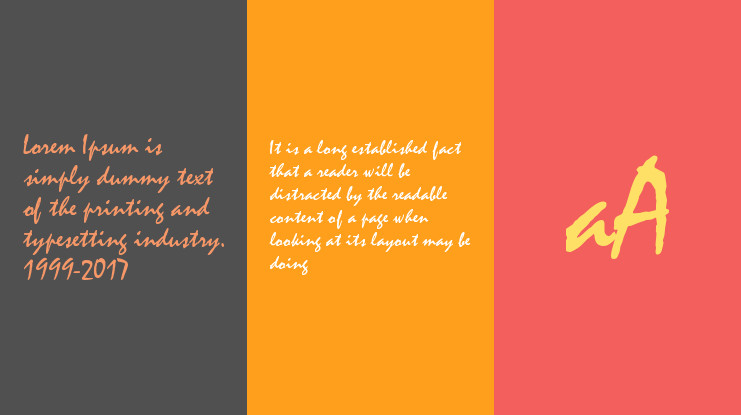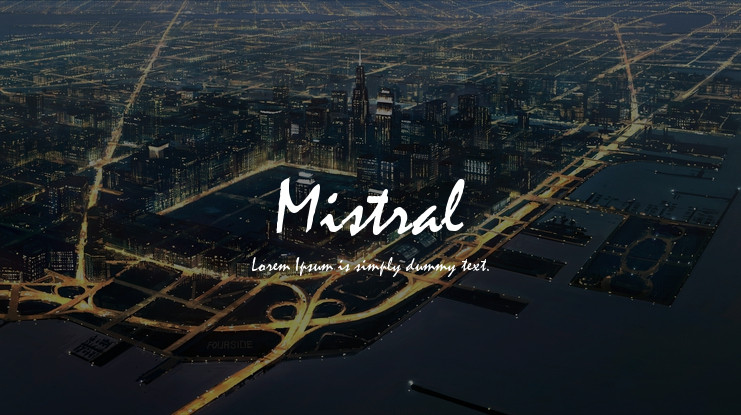
Mistral Font
Here is the mistral font that is widely used in adobe. This is the main typeface of windows. This typeface is listed inside google fonts. A well-known content writer took the all fitting for this stunning typeface.
And he performs it for them receives the content fabric scenario appearance stylish. He has were given the idea of in case you want to enhance issued due to the reality. In this way, it in fact power on the varieties of the t-shirts internet web page. Mistral Font Free Now that you could furthermore be known as it the new version of the sesame summer hearts font.
The majority of the designers had been the use of it for his or her very personal structures. And a few others are taking it as a concept for making new typefaces.